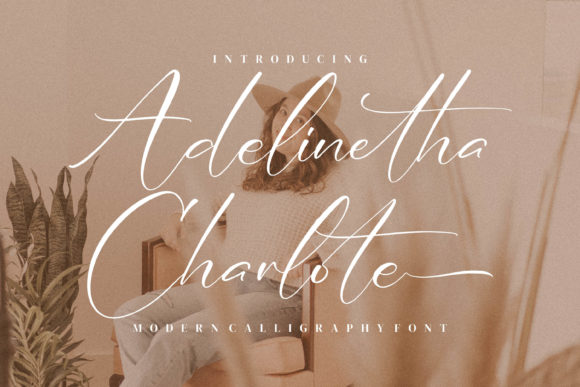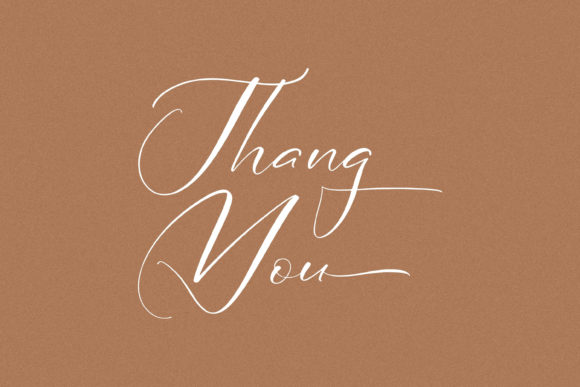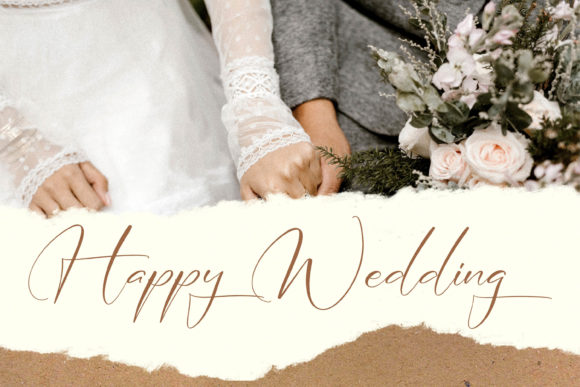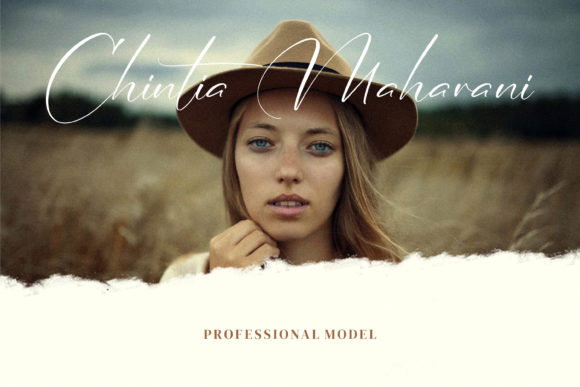
About Adelinetha Charlote Font
Adelinetha Charlote is a premium script font suitable for any projects such as logos, branding projects, homeware designs, product packaging, mugs, quotes, posters, shopping bags, t-shirts, book covers, name cards, invitation cards, greeting cards, labels, photography, watermark, special events, and all your other luxury projects that need a premium signature taste.